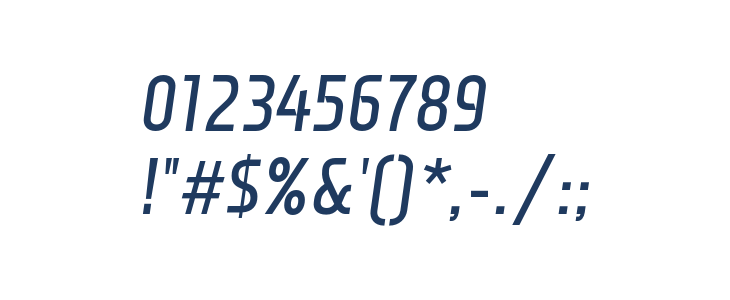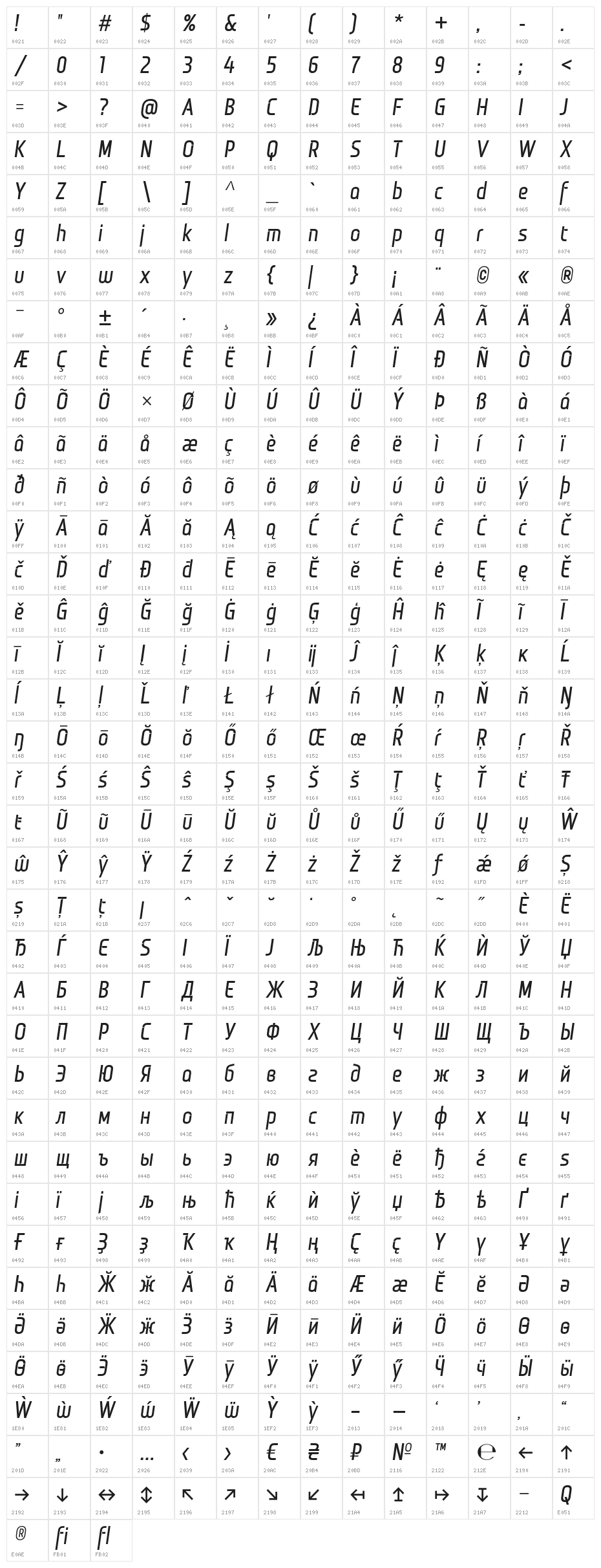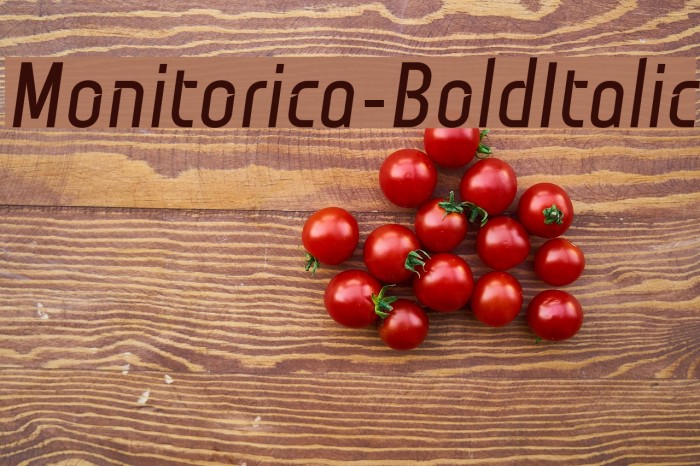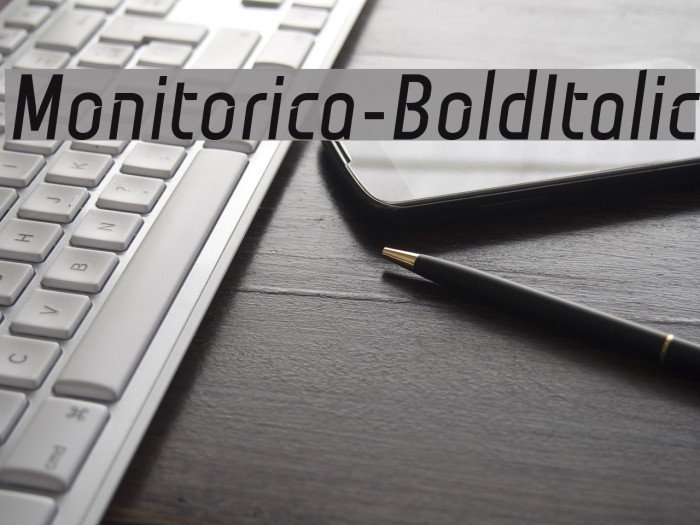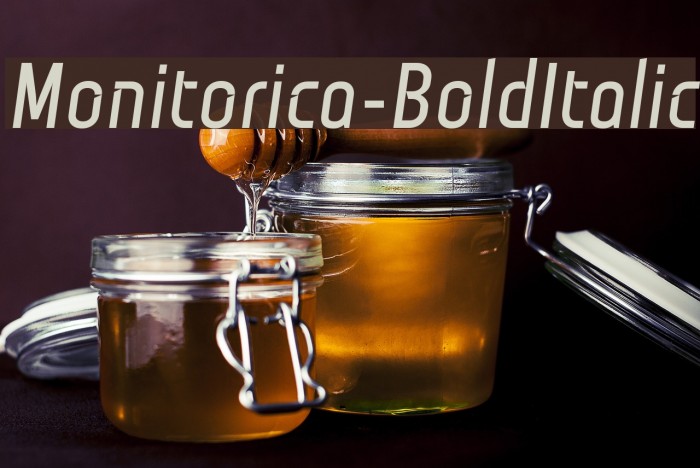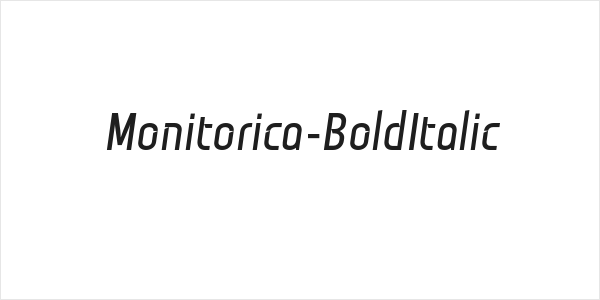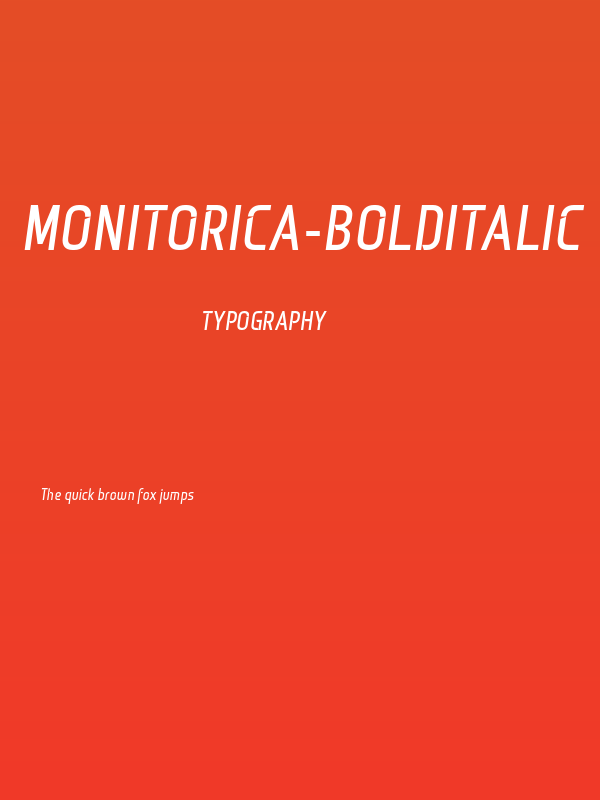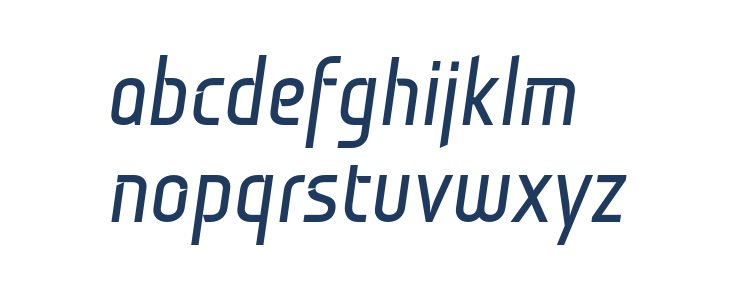
Monitorica-BoldItalic Font
Monitorica-BoldItalic Description
This font features a bold and italicized style, characterized by its clean and modern sans-serif design. The letters are slightly condensed, giving it a sleek and streamlined appearance. The strokes are consistent in weight, providing a uniform look across all characters. The italic slant adds a dynamic and forward-moving feel, making it suitable for contemporary and professional applications. The numerals and special characters maintain the same stylistic elements, ensuring cohesion throughout the typeface. The overall design is minimalistic yet impactful, making it versatile for various uses.
| Use Case | Headlines, Logos, Digital Interfaces |
| Proposed Projects | Ideal for branding, advertising, digital interfaces, and modern print media. |